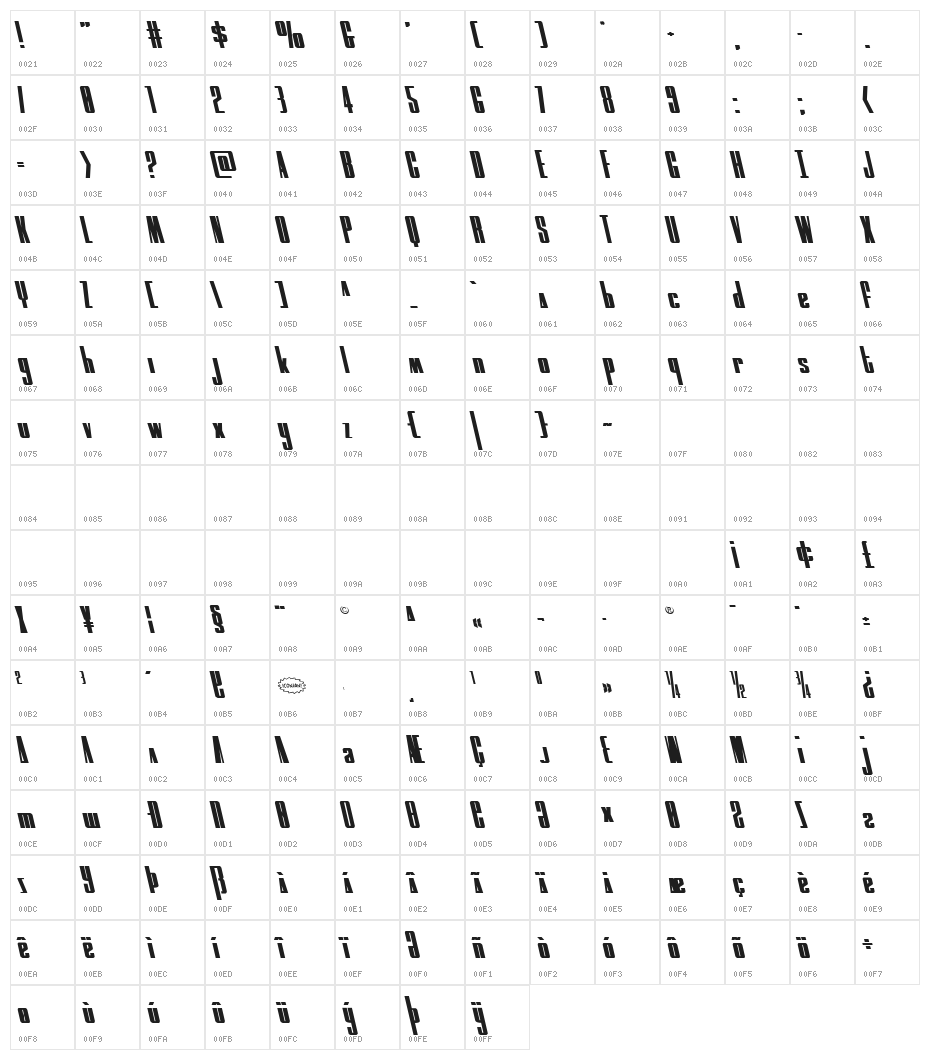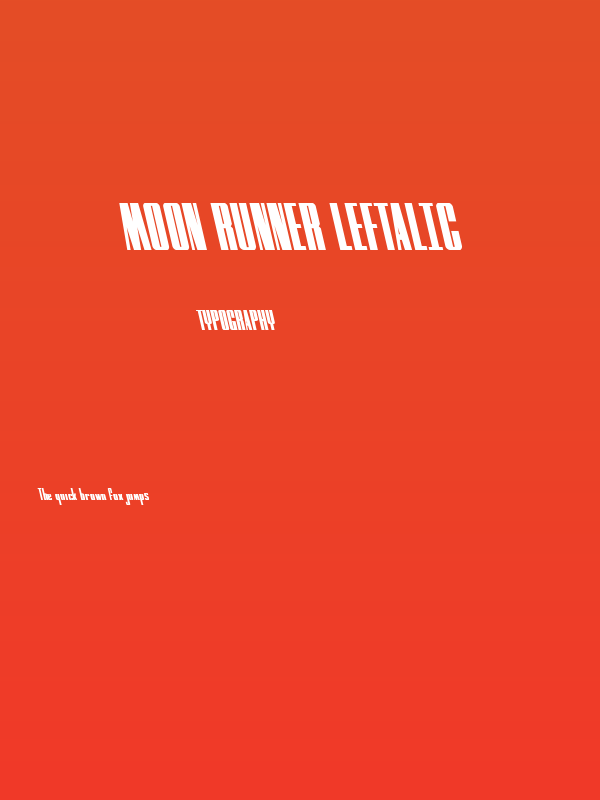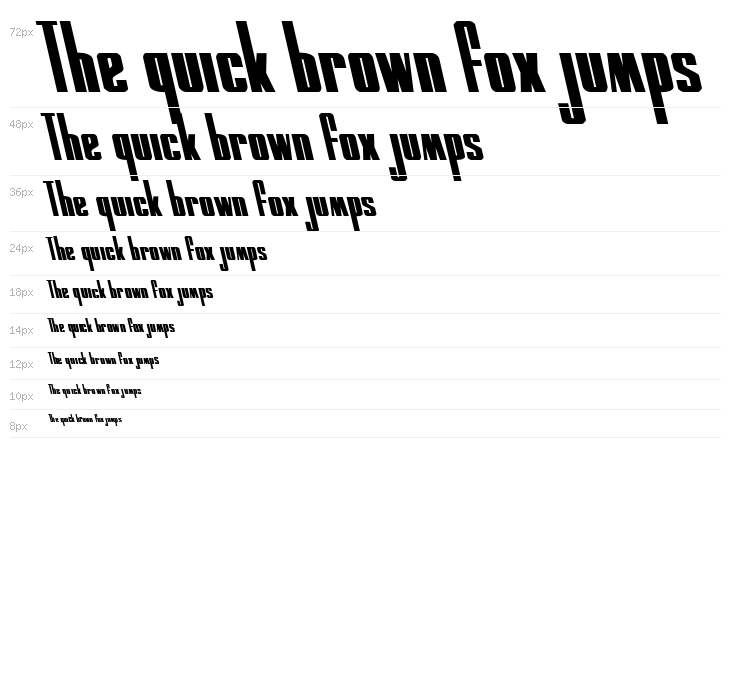
MOON Runner Leftalic Font
MOON Runner Leftalic Description
This font features a bold and dynamic design with a distinct leftward slant, giving it a sense of motion and energy. The characters are tightly spaced and have a condensed width, enhancing the compact and impactful appearance. The strokes are thick and uniform, providing a strong visual presence. The uppercase and lowercase letters maintain a consistent style, with sharp angles and clean lines. The numerals and special characters follow the same aesthetic, ensuring a cohesive look across all elements. This font is ideal for projects that require a bold statement and a modern, edgy feel.
| Proposed Projects | Ideal for sports branding, dynamic posters, edgy advertisements, and modern logo designs. |